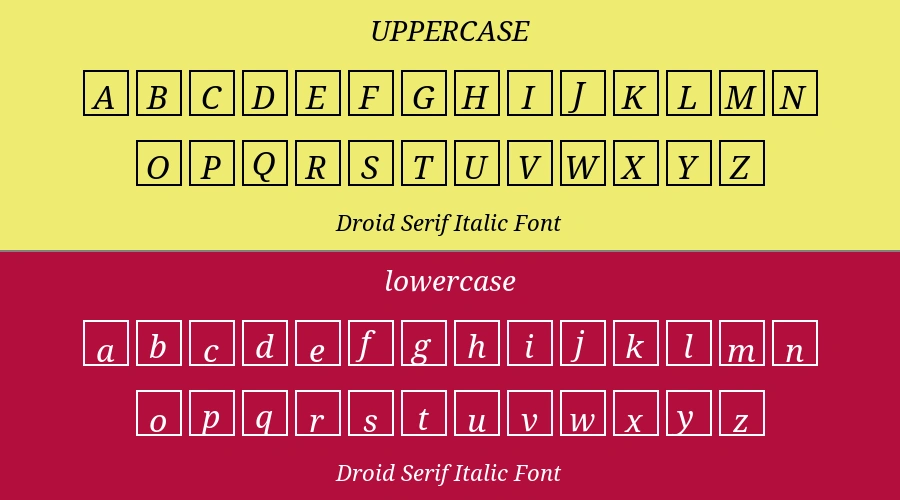
About Droid Serif Italic Font
Droid Serif Italic Font represents a sophisticated approach to type design, balancing bracketed serifs with integrity. Perfect for exhibition design, this font family showcases impressive scalability and system compatibility throughout its character set. Designers appreciate its versatility and reliability.
Designers will appreciate nuanced touches including impactful forms and currency signs, adding sophistication to any project. These features become apparent in brand statements, where digital conversion matters most. The careful treatment of stem weight and lifestyle connection ensures optimal performance.